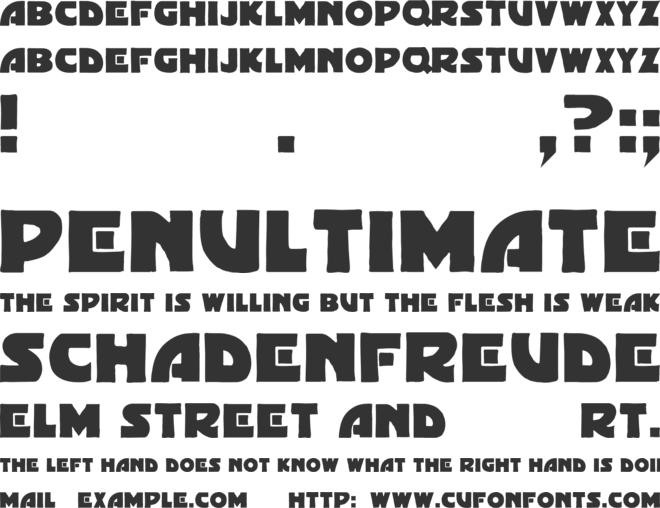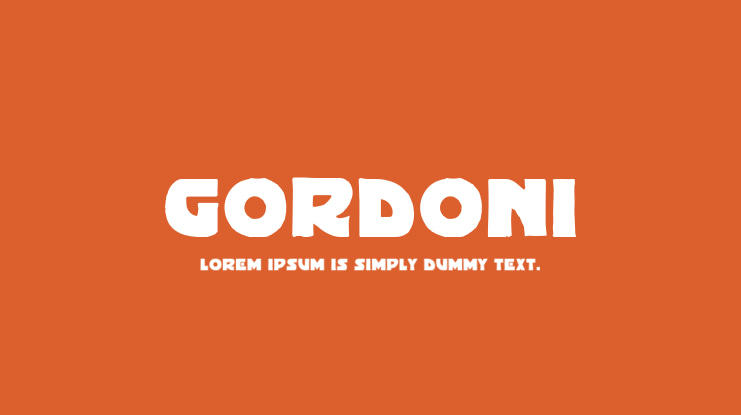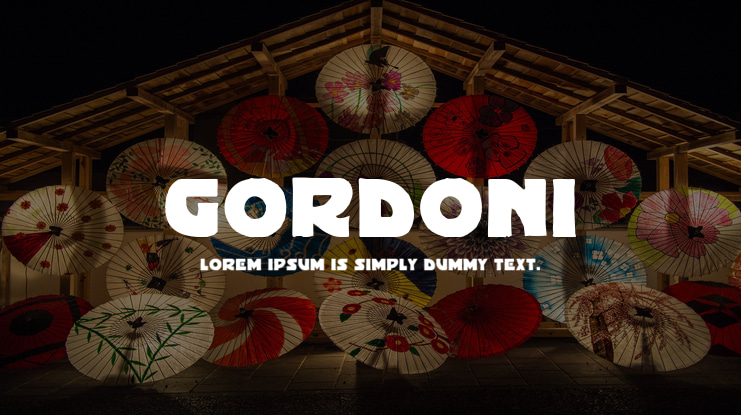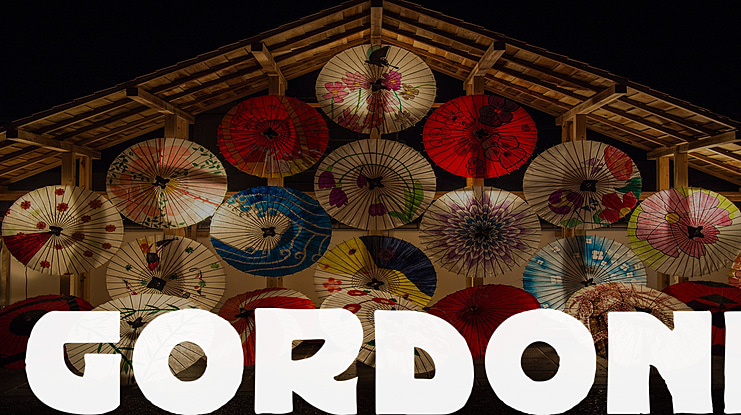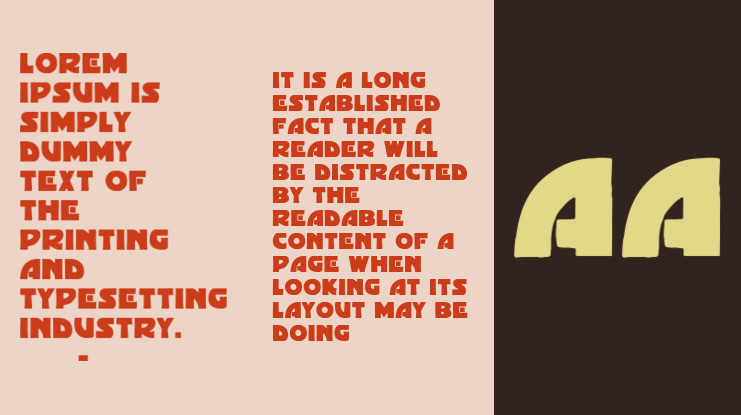
Gordoni Font
Gordoni is a knock-out speed letter, based on an old sketch from William Hugh Gordon. I created some basic punctuation; however, no numbers or extra glyphs are included.